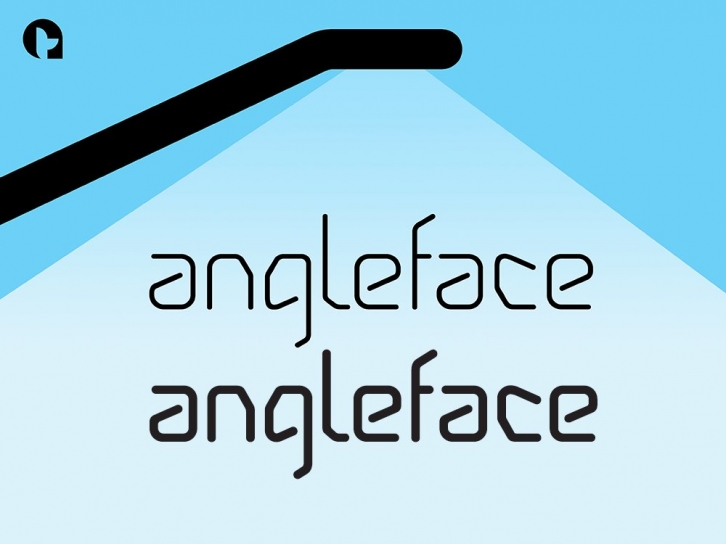
Angleface is a strikingly modern typeface with rounded terminals and an interesting mix of curved and angular features.
With initial thoughts of creating something tubular, I had in the back of my mind the kind of contemporary chrome furniture that became ubiquitous throughout the 1960s and that concept remained with me throughout the development process.
See also the narrower Angleface Condensed family.